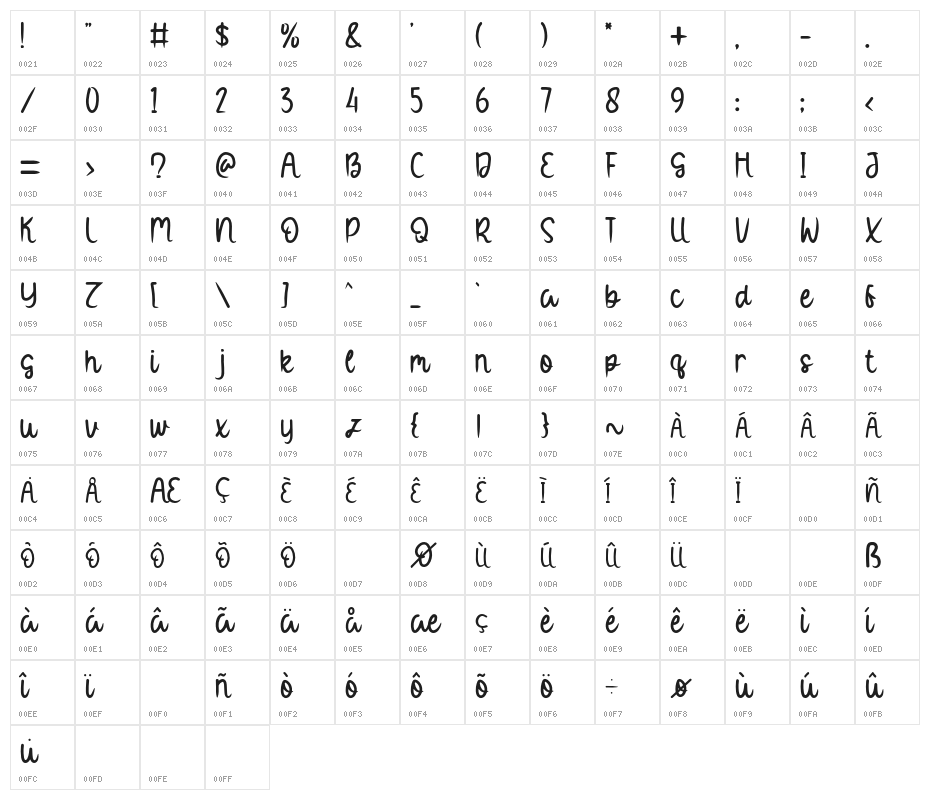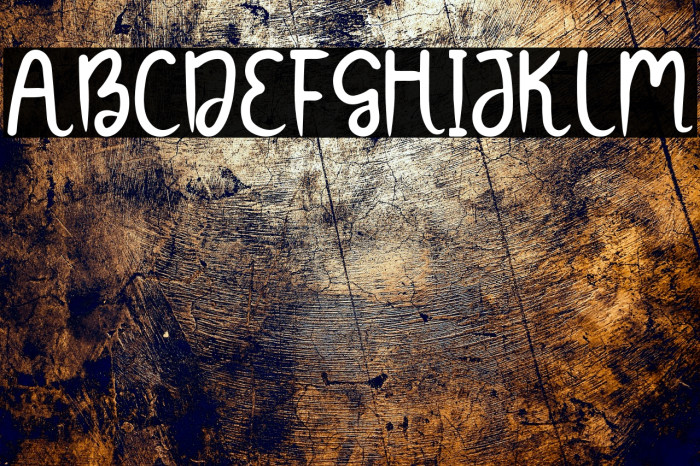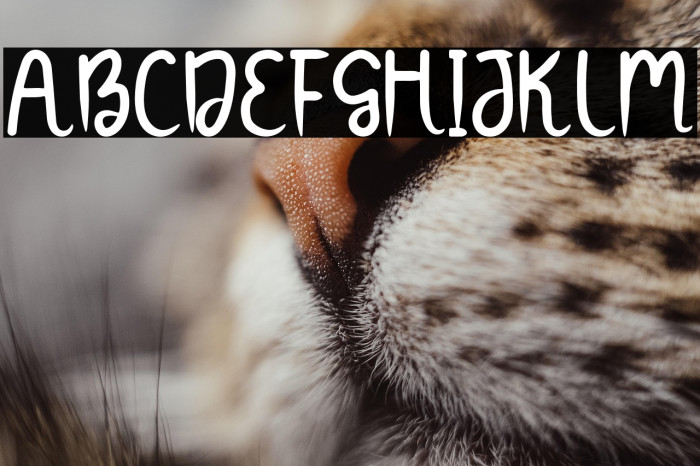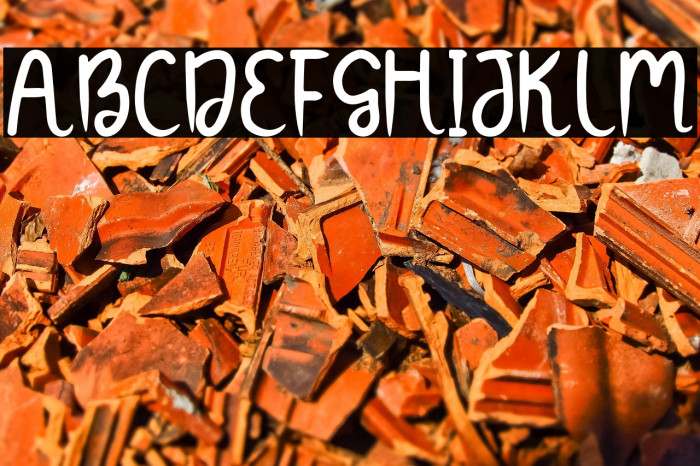
Cappuccino Latte Font
Cappuccino Latte Description
This font features a playful and casual handwritten style, characterized by its smooth, flowing curves and slightly irregular letterforms. The uppercase letters are bold and rounded, with a whimsical touch that adds personality to the text. The lowercase letters maintain the same playful aesthetic, with some letters extending slightly below the baseline, enhancing the handwritten feel. Numbers and special characters are consistent with the overall style, making them easily readable while retaining the font's unique charm. This font is perfect for projects that require a personal, friendly touch, such as invitations, greeting cards, or creative branding.